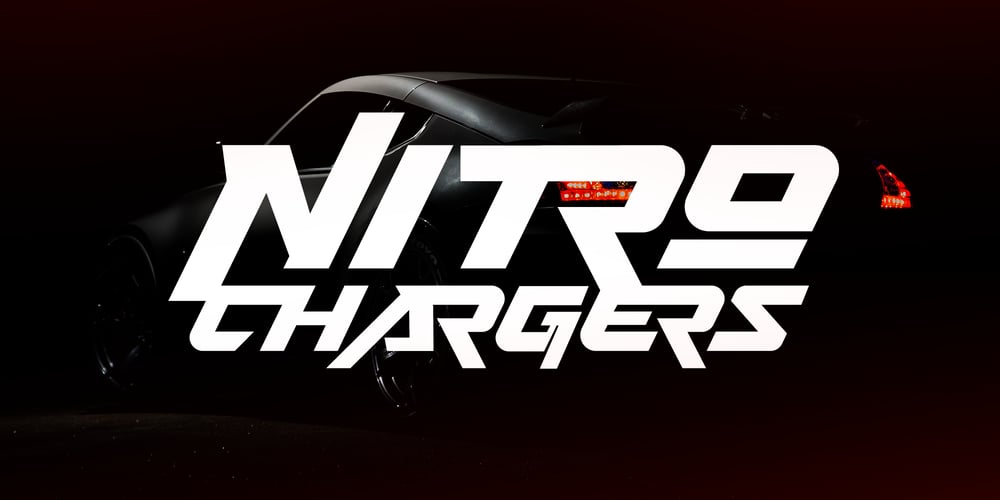
Nitro Chargers
Nitro Chargers font
Nitro Chargers Font Family was designed by Muhammad Afif Ersya and published by Mevstory Studio. Nitro Chargers contains 1 styles and family package options. Nitro Chargers an awesome sports fonts, modern cutouts, and dynamic slant. Ideal for fast car racing sports titles, running matches, cycling, automotive game logos and monograms or other modern dynamic text. Nitro Chargerscompare favorably with legibility and size, creating the effect of power and speed. Designed as a fast and dynamic font, but with a slightly different font design, check it out and grab it right away.